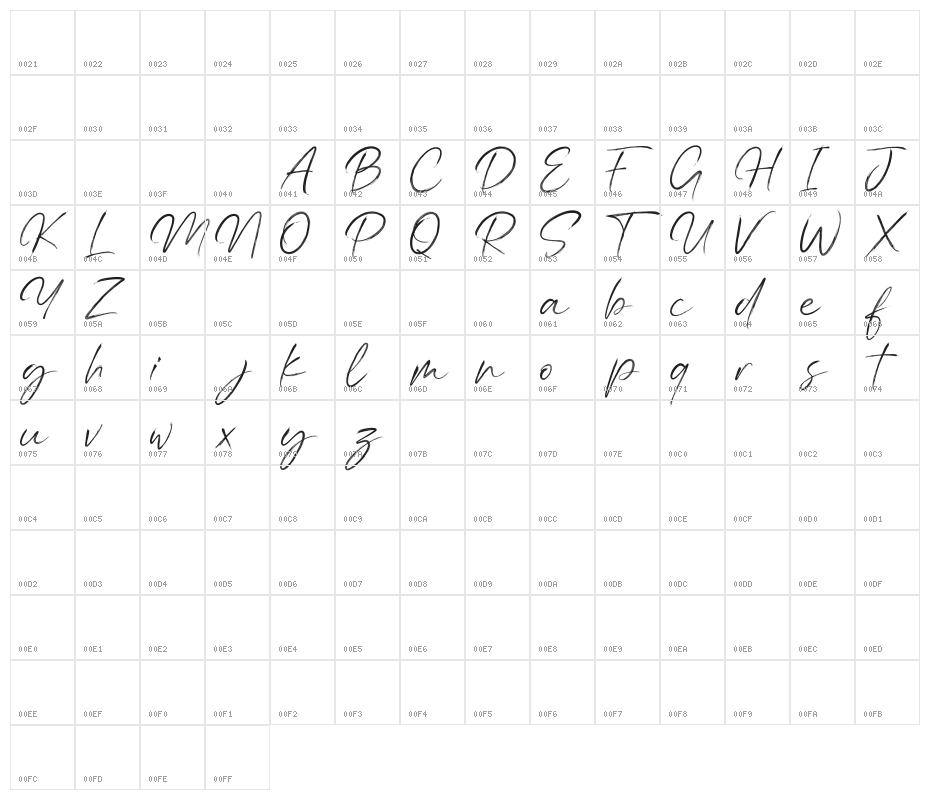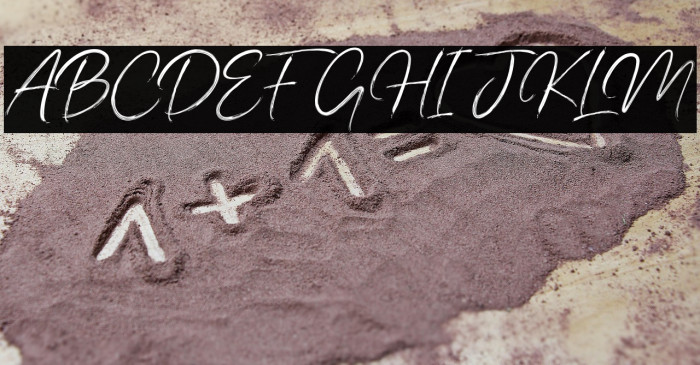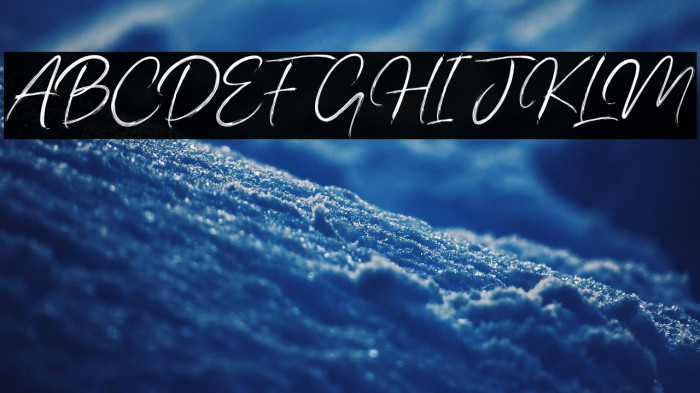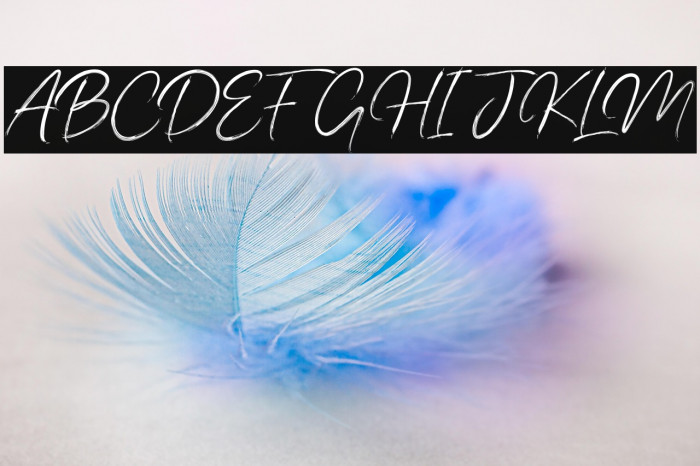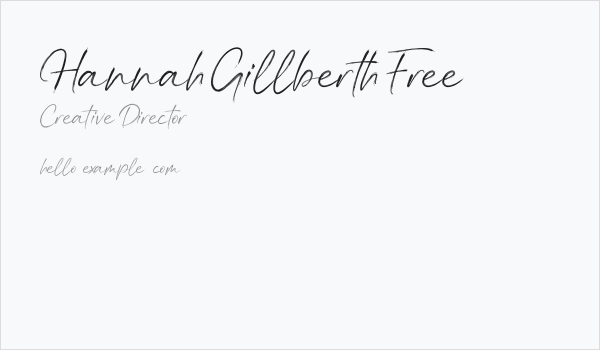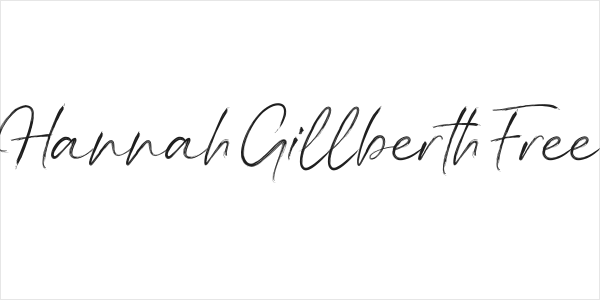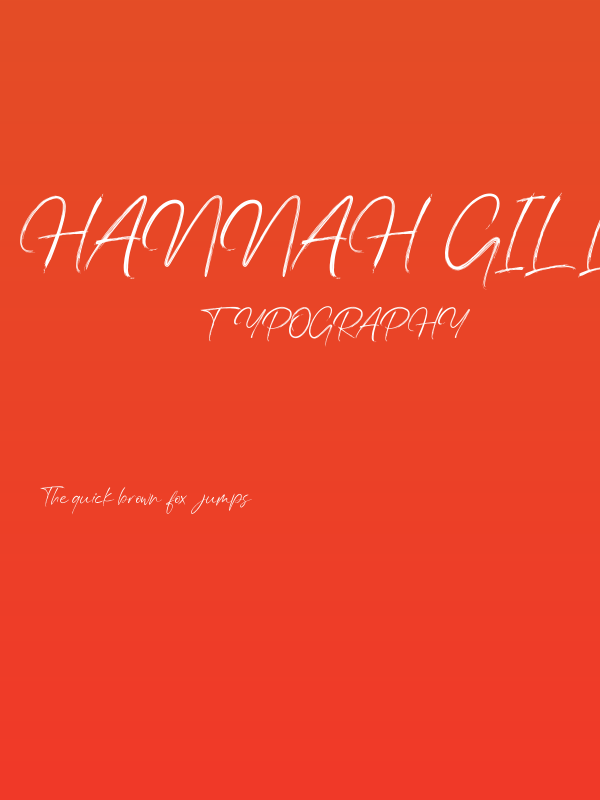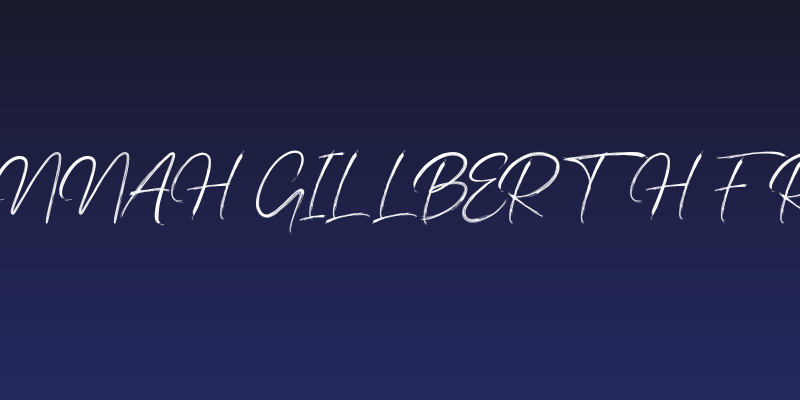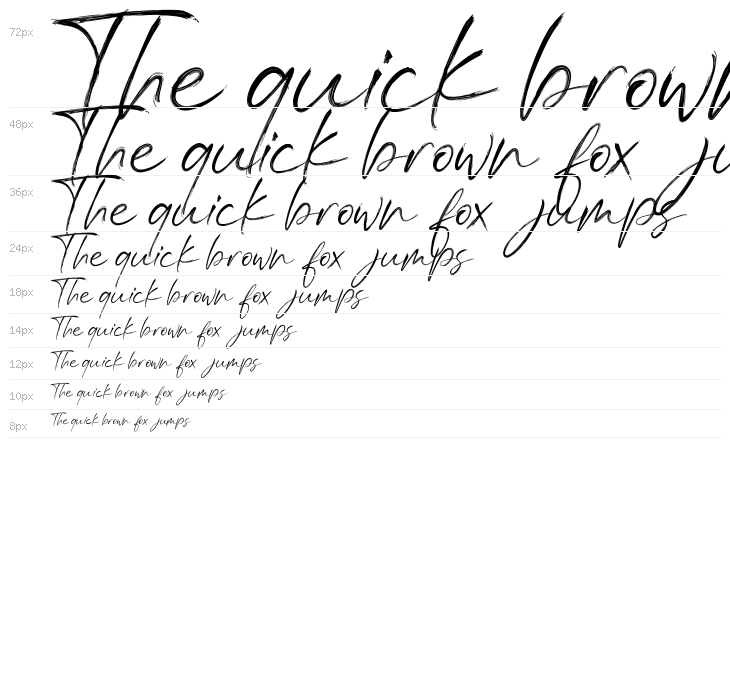
Hannah Gillberth Free Font
Hannah Gillberth Free Description
This font exudes a dynamic and expressive style, characterized by its fluid, handwritten appearance. The strokes are varied in thickness, creating a sense of movement and energy. The uppercase letters are bold and sweeping, while the lowercase letters maintain a consistent flow with elegant loops and curves. The overall look is both artistic and casual, making it suitable for creative projects. The font's organic feel is enhanced by its slightly irregular lines, giving it a personal touch that mimics natural handwriting.
| Overall Style | Artistic, Casual |
| Proposed Projects | Ideal for invitations, greeting cards, branding, and artistic projects that require a personal touch. |